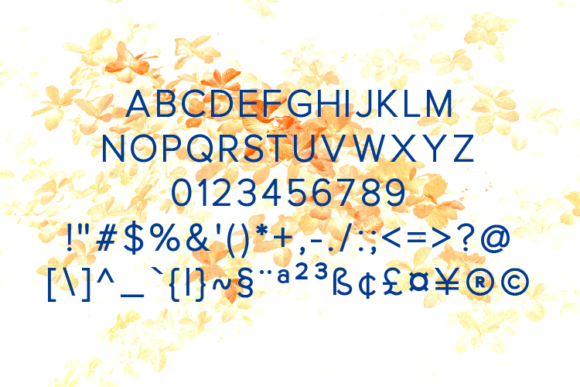
Gerkco Semi-Bold Font: Elevate Your Designs with a Modern Twist
In the world of typography, fonts play a crucial role in shaping the visual identity of a design. Whether you’re a graphic designer, a crafty DIY enthusiast, or a digital artist, finding the right font can make all the difference. If you’re on the hunt for a clean, elegant, and modern sans serif font, look no further than Gerkco Semi-Bold. This versatile font is perfect for creating stunning logos, eye-catching social media posts, unique book covers, and so much more.
The Gerkco Semi-Bold Advantage
Gerkco Semi-Bold is a member of the sans serif font family, characterized by its clean lines, simple shapes, and modern aesthetic. This font boasts a semi-bold weight, making it perfect for designs that require a bit of heft without sacrificing elegance. Its unique blend of sophistication and approachability makes it an excellent choice for a wide range of projects.
Key Features of Gerkco Semi-Bold Font
- Clean and Elegant Design: Gerkco Semi-Bold features a sleek, uncluttered design that exudes modernity and sophistication.
- Versatile and Adaptable: This font is suitable for various design projects, from logos and social media graphics to book covers and more.
- Easy to Read: The semi-bold weight ensures that your text is clear and legible, even at smaller font sizes.
- Highly Customizable: Gerkco Semi-Bold can be easily paired with other fonts to create a unique visual identity.
Design Inspiration with Gerkco Semi-Bold
One of the most significant advantages of Gerkco Semi-Bold is its ability to inspire creativity. Its modern feel and balanced design make it an excellent choice for designers looking to push the boundaries of their work. Here are a few ideas to get you started:
Logo Design
Create a lasting impression with a custom logo that showcases your brand’s personality. Gerkco Semi-Bold’s clean lines and elegant design make it perfect for crafting a professional, modern logo that stands out.
Social Media Graphics
Elevate your social media presence with eye-catching graphics that showcase your brand’s style. Gerkco Semi-Bold is ideal for creating engaging posts, stories, and ads that grab attention.
Book Covers
Make your book cover stand out on crowded shelves with Gerkco Semi-Bold. This font is perfect for creating a professional, eye-catching design that captures the essence of your story.
Tips for Using Gerkco Semi-Bold Effectively
To get the most out of Gerkco Semi-Bold, consider the following tips:
Pair it with Complementary Fonts
Experiment with different font combinations to create a unique visual identity. Gerkco Semi-Bold pairs well with both serif and sans serif fonts.
Play with Font Sizes
Don’t be afraid to experiment with different font sizes to create visual hierarchy and emphasize key elements.
Experiment with Colors
Gerkco Semi-Bold looks great in a variety of colors. Try pairing it with bold colors to create a striking design or use more muted tones for a subtle look.
Gerkco Semi-Bold is a versatile, modern sans serif font that’s perfect for designers and crafters looking to elevate their work. Its clean design, semi-bold weight, and adaptability make it an excellent choice for a wide range of projects. Whether you’re creating logos, social media graphics, book covers, or more, Gerkco Semi-Bold is sure to inspire your creativity and help you achieve a balanced, modern look.